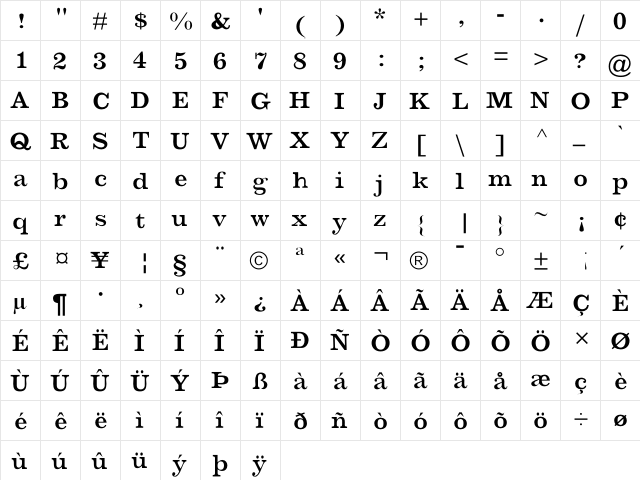
Barbera Regular
Design Context for Barbera Typeface
Barbera offers clean, dependable letterforms without strong stylistic allegiance, making it a practical choice for designers who need flexibility.